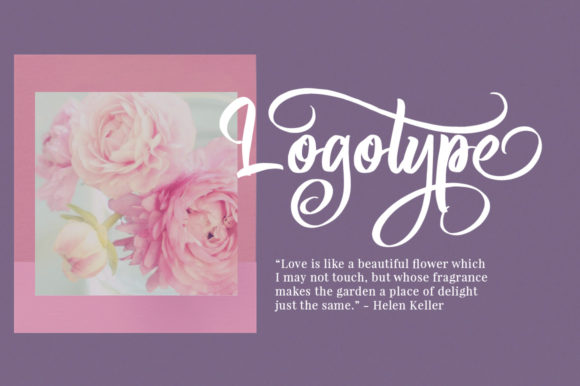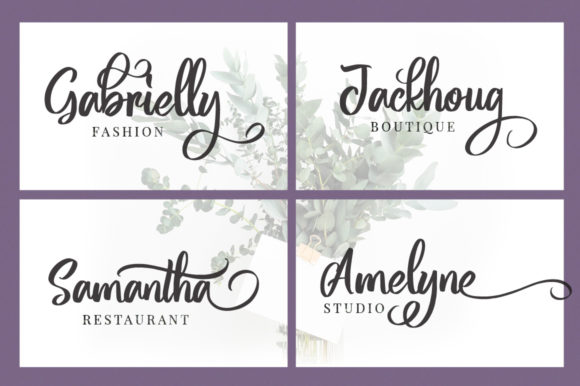
Magentasia Font
db-ku.com - Script & Handwritten -- Magentasia is a charming handwritten font with exciting flourishes. Great for many different design projects!